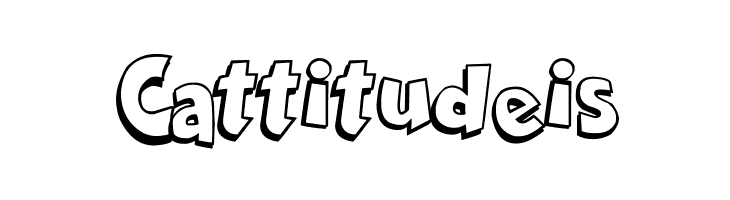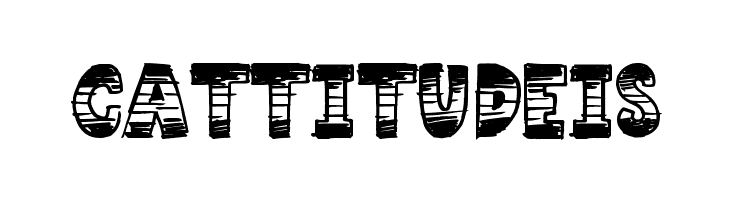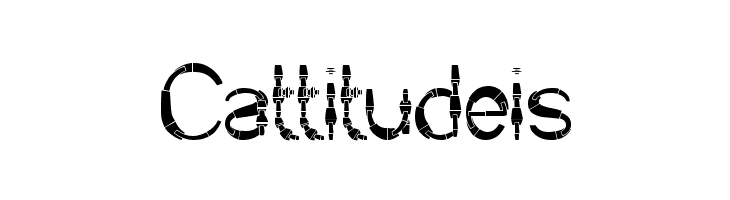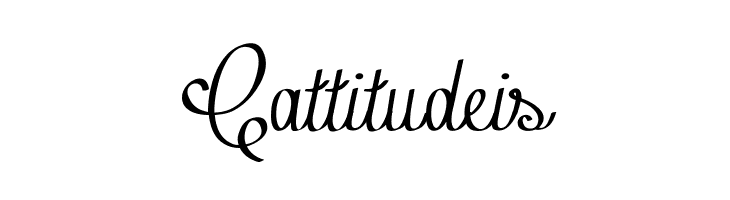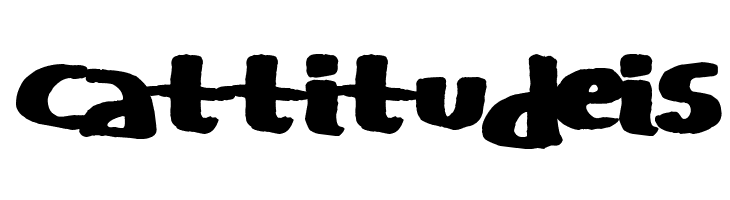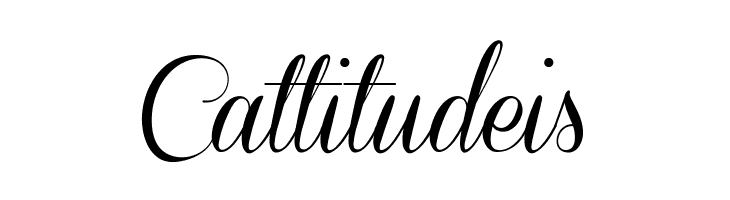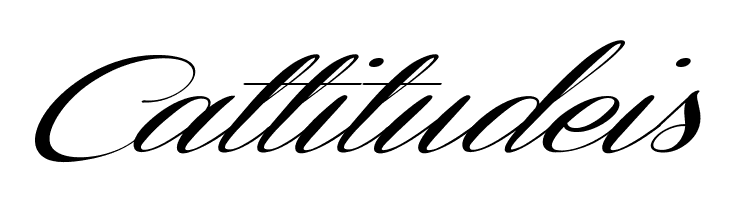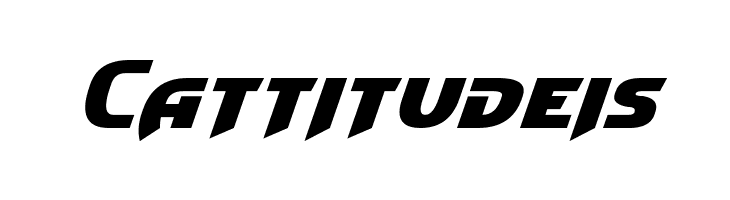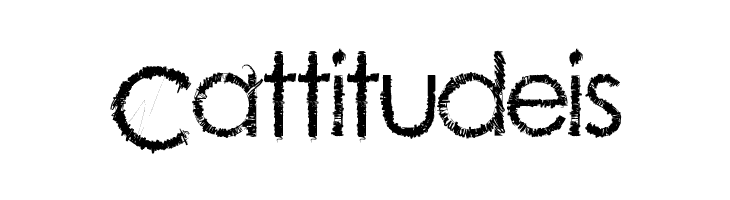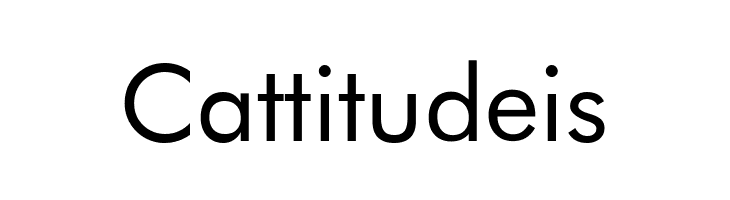
A decorative, vine-like font with an organic, intertwined design.
A bold, geometric, and decorative typeface with a modern flair.
A bold, modern italic font with a sleek, dynamic style.
A tactile Braille font for visually impaired readers.
A tactile writing system using raised dots for visually impaired readers.
A bold, fragmented font with a shattered glass effect, featuring angular and irregular shapes.
A bold, gothic-inspired font with sharp, angular edges and a dramatic flair.
A playful, handwritten script font with smooth, flowing lines.
A bold, pixelated outline font with a retro digital aesthetic.
A pixelated, retro-style font with a digital, geometric appearance.
A bold, dynamic italic font with strong, consistent strokes and a sense of movement.
A playful, casual handwritten font with a bold, organic style.
A jagged, shattered glass-style font with sharp, angular fragments.
A bold, spiky decorative font with an explosive effect.
A bold, playful font with decorative curls and a retro-modern style.
A bold, playful font with rounded, bubbly characters.
A hand-drawn, rustic font with a distressed and organic appearance.
A tall, narrow, and modern font with consistent stroke width and elegant design.
A bold, slab serif font with a vintage yet modern appeal.
A bold serif font with classic, authoritative characteristics.
A bold, slanted font with sharp angles and a modern, dynamic style.
A bold, geometric font with angular shapes and high contrast.